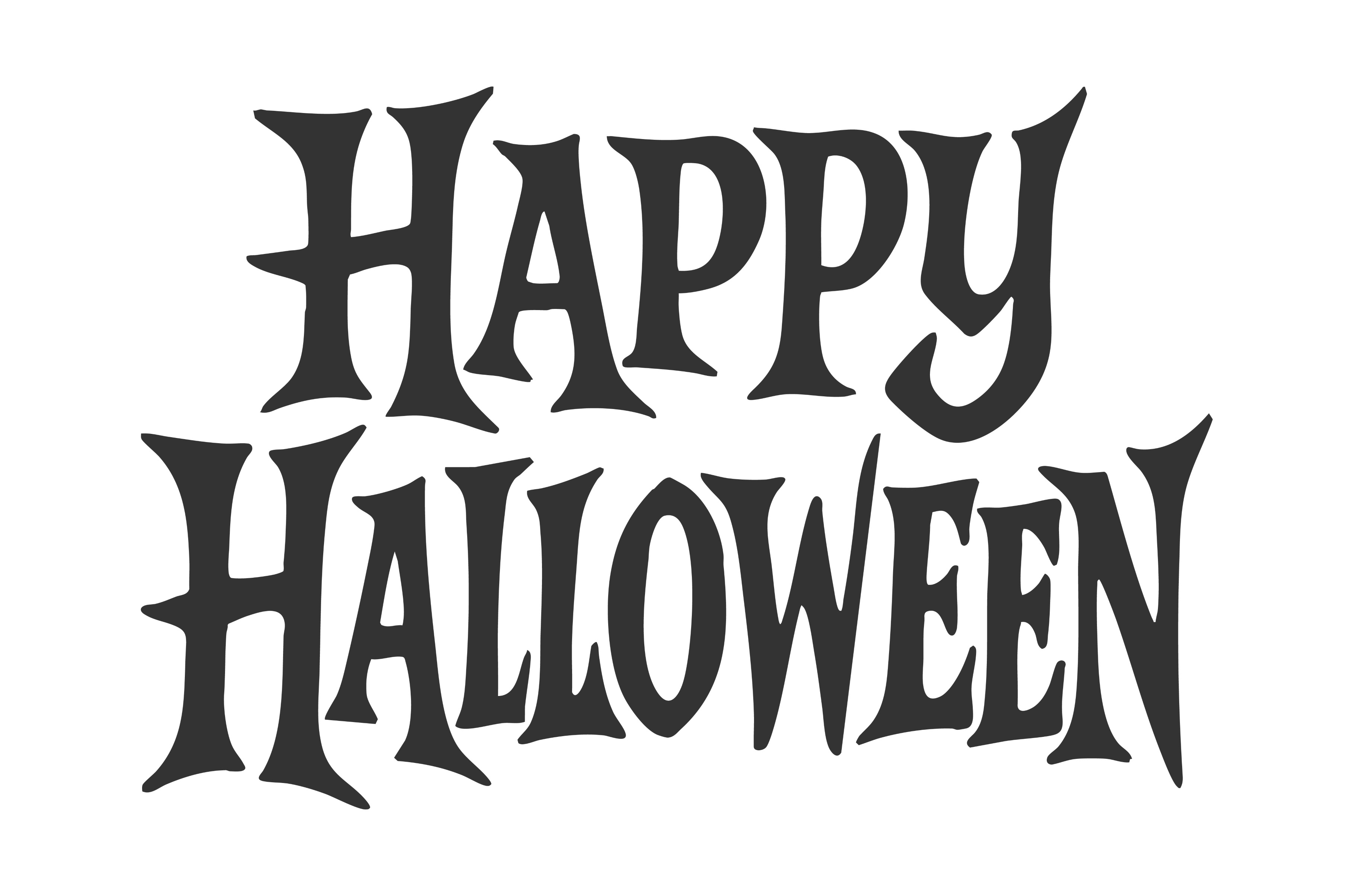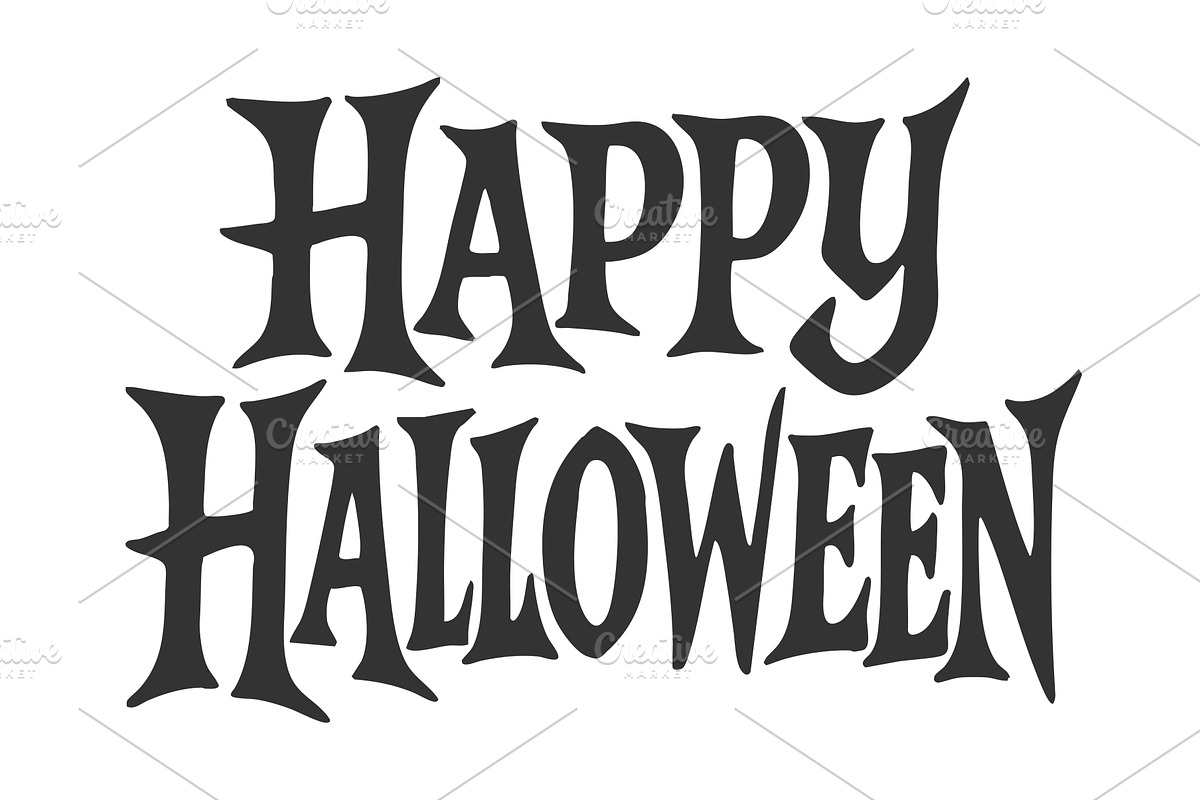
Happy Halloween Text in Spooky Font
Halloween typography design with bold spooky font spelling Happy Halloween, perfect for party invitations, posters, sketch engraving generative ai vector illustration. Scratch board. Black and white.